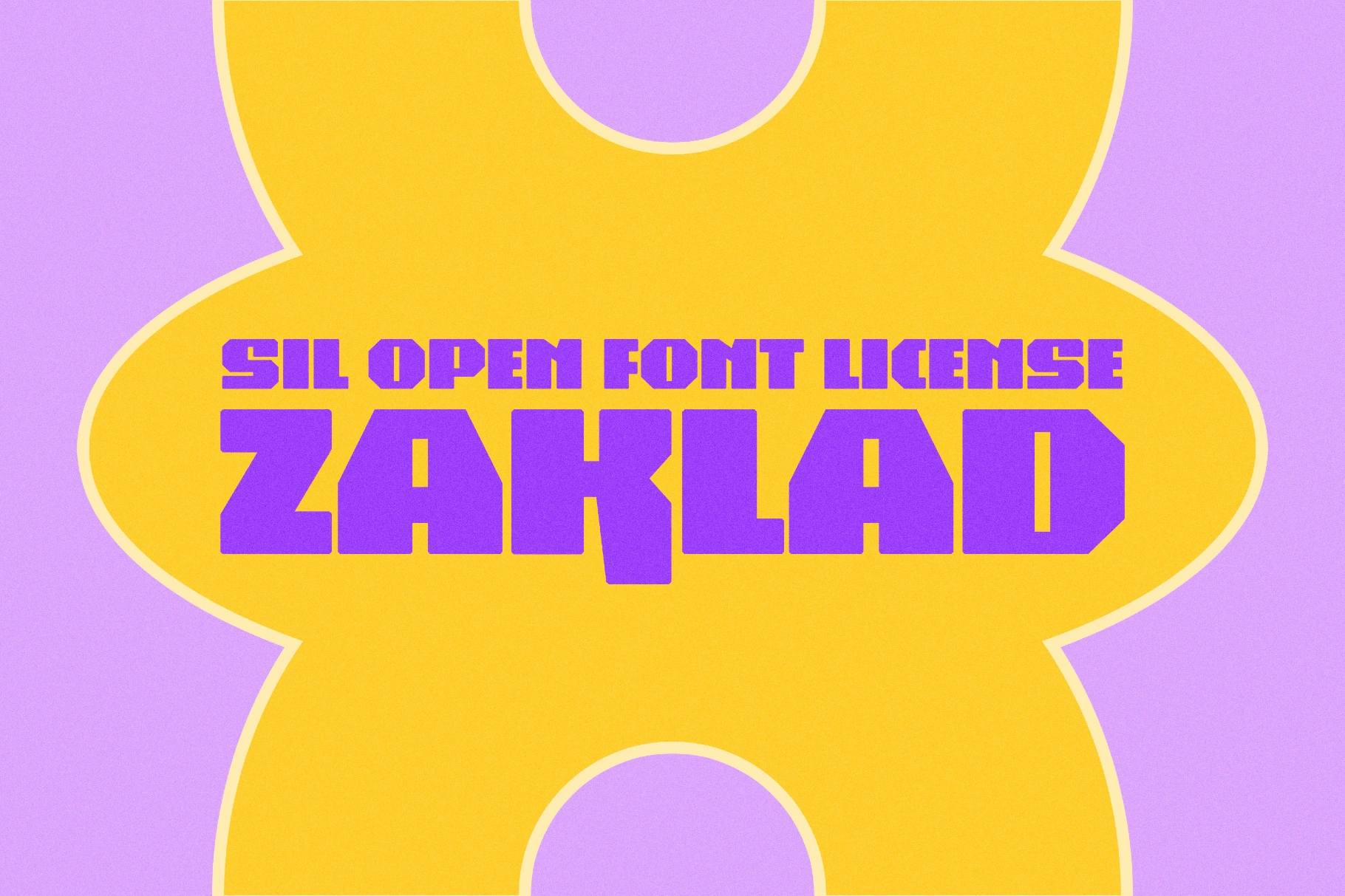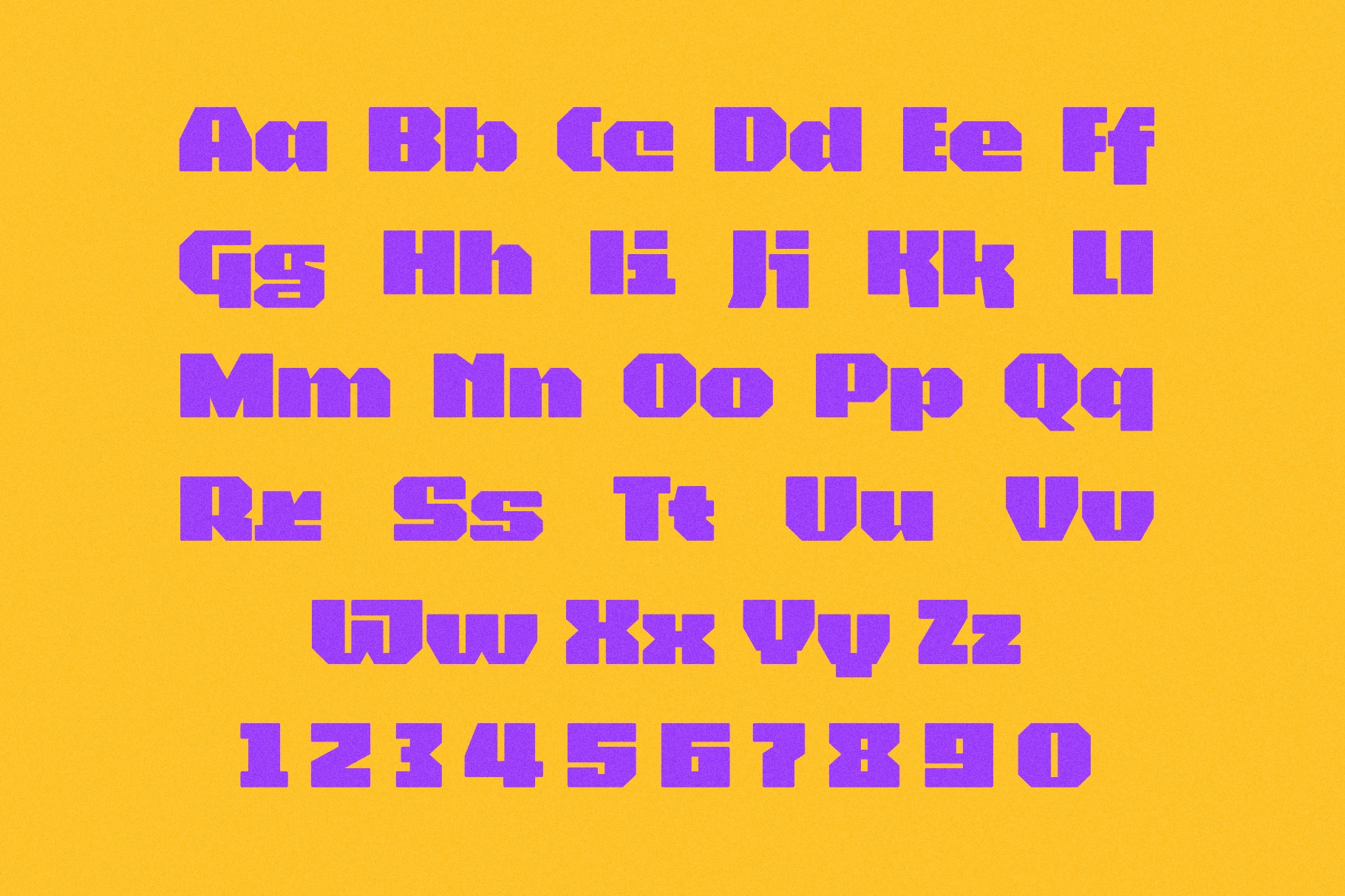
Zaklad Type
Zaklad-Regular
Zaklad is a chunky, geometric font with hand-painted signboard punch, echoing Eastern European industrial signage and post-socialist posters. Its firm rhythm suits storefront signage, cultural-event posters, album covers, logotypes, editorial headlines, wayfinding graphics, packaging copy, UI typography, institutional branding, packaging labels, and game titles.